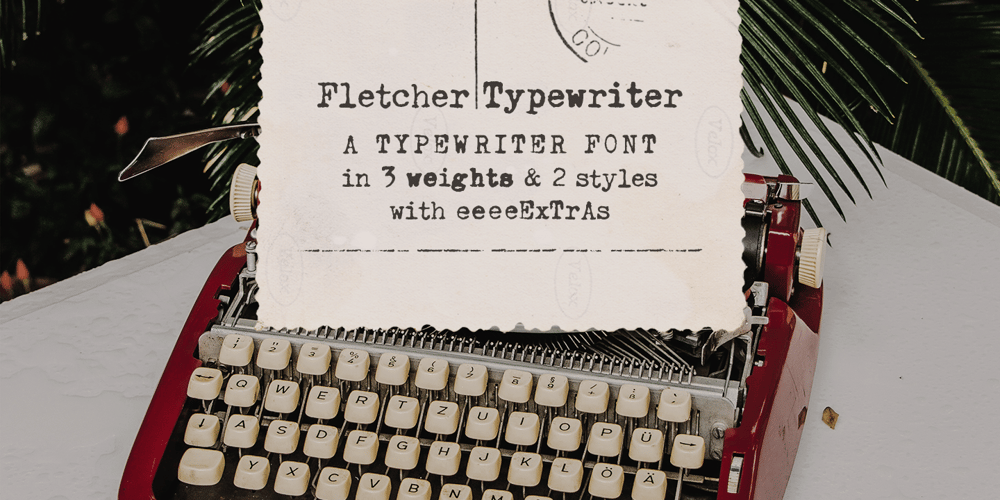
Fletcher Typewriter
Fletcher Typewriter font
Fletcher Typewriter Font Family was designed by Ana Parracho and published by Ana’s Fonts. Fletcher Typewriter contains 7 styles and family package options. Fletcher Typewriter font and extras is an authentic vintage typewriter font, perfect to add an extra retro look to your designs. Use it in long or short texts, in digital collages, branding and packaging, social media posts, logotypes, etc.What you’ll get: 1 font family with 3 weights (regular, bold, black – each weight drawn individually), 2 styles (regular and jumpy); an extra set of stamps, misprints, underlines and overlines.